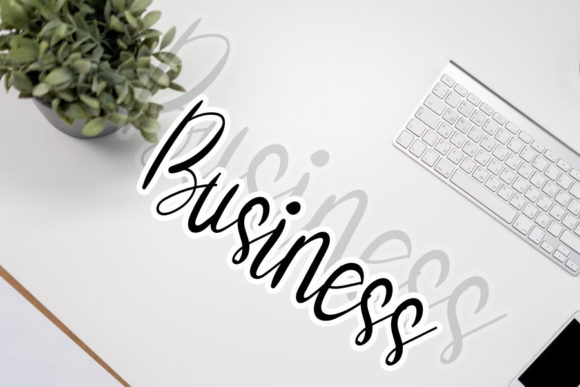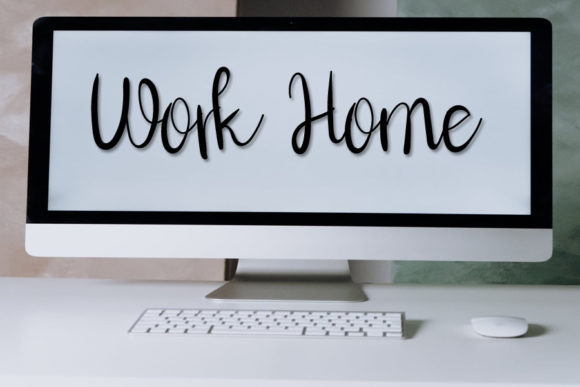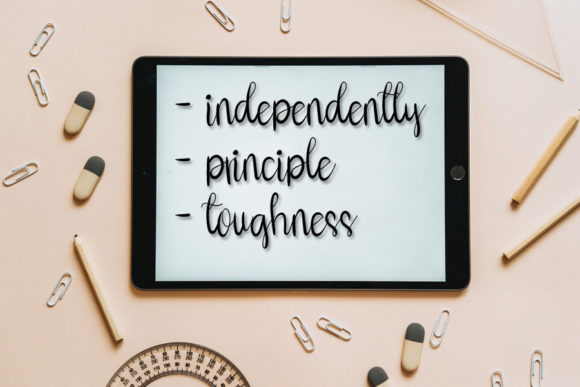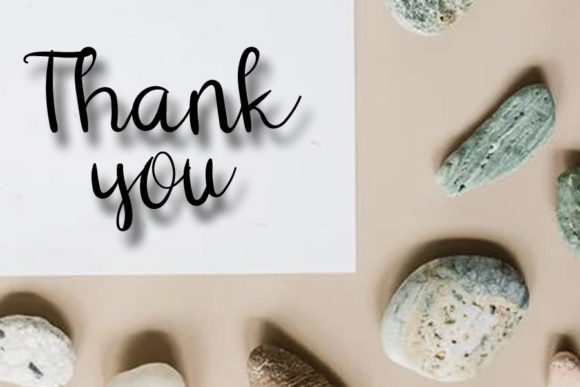
About Hystta Font
Hystta is a flowing, delicate and refined script font. It can be added to a wide variety of designs, such as wedding invitations, birthday cards, thank you cards, or pretty much any design that require a genuine and elegant touch.